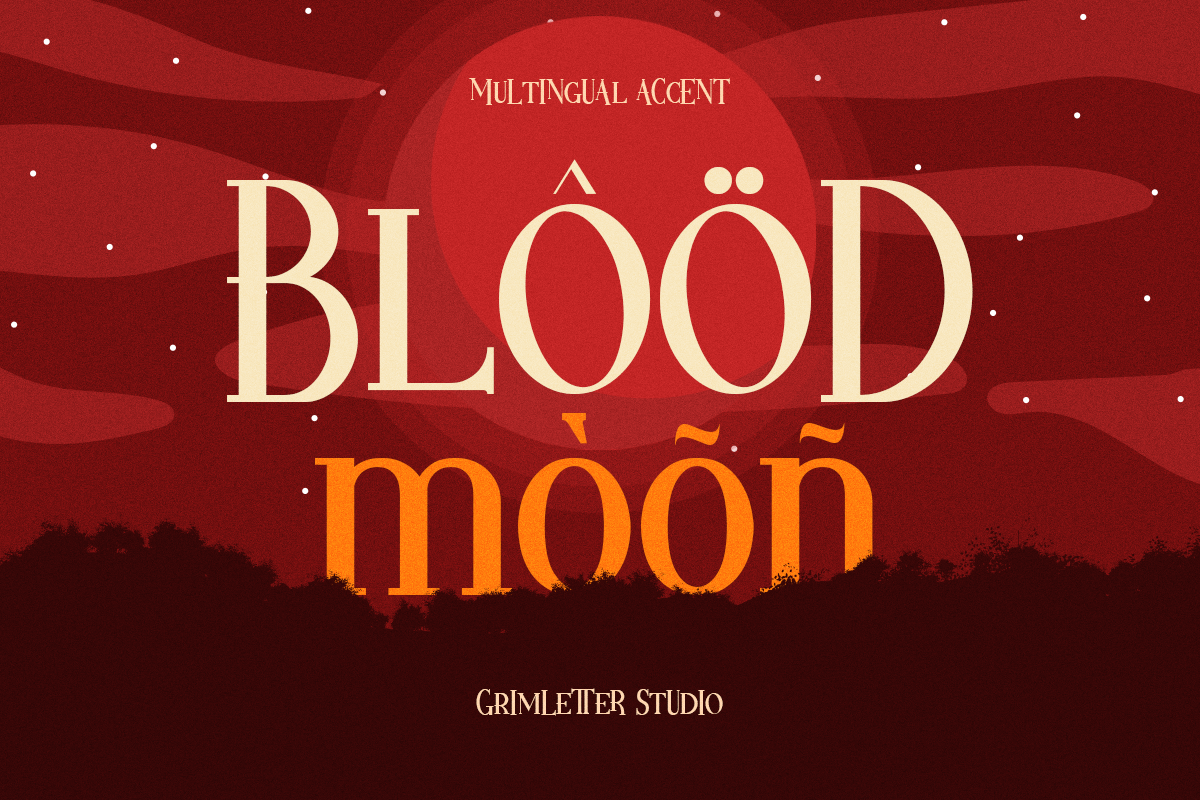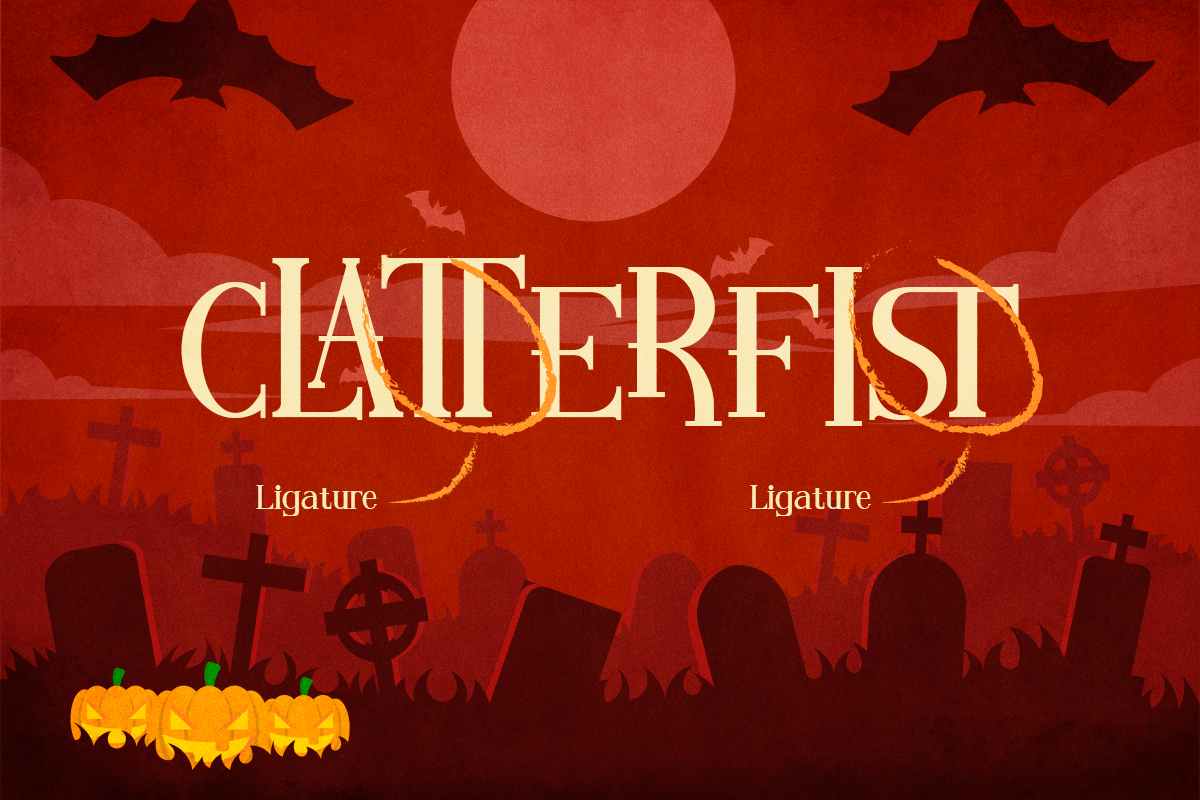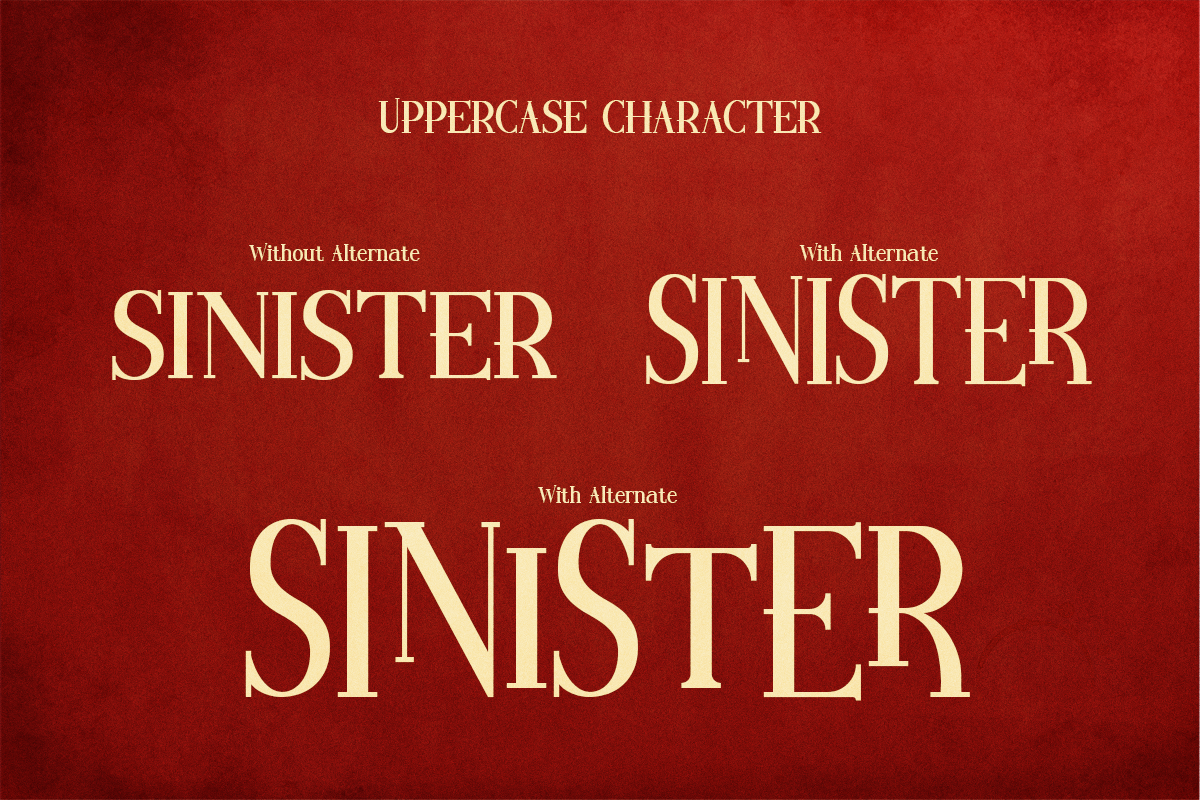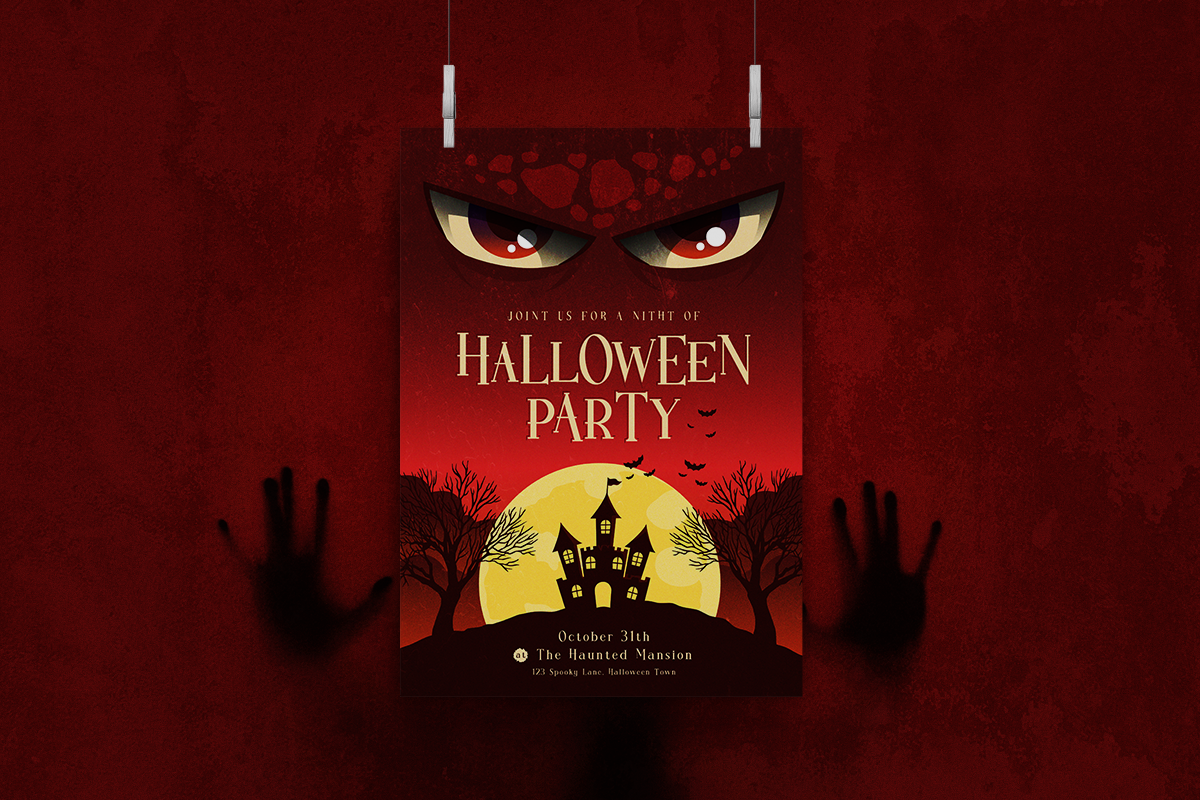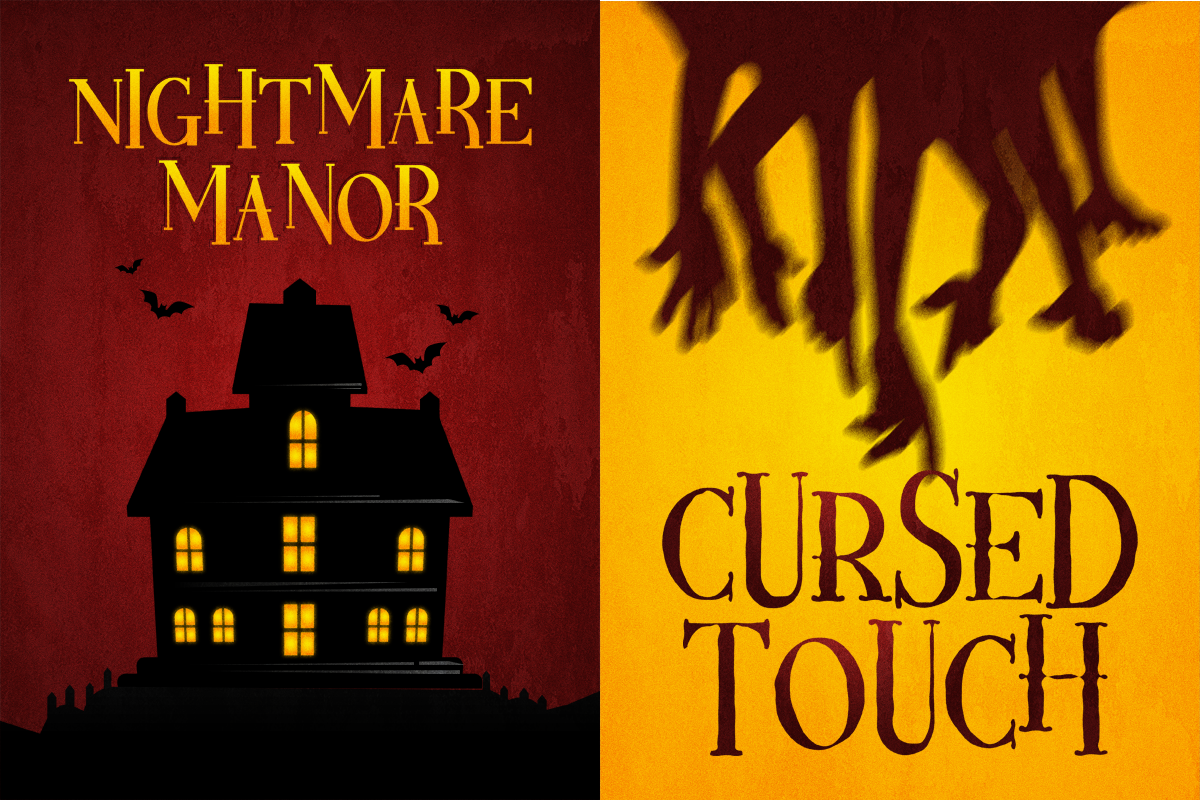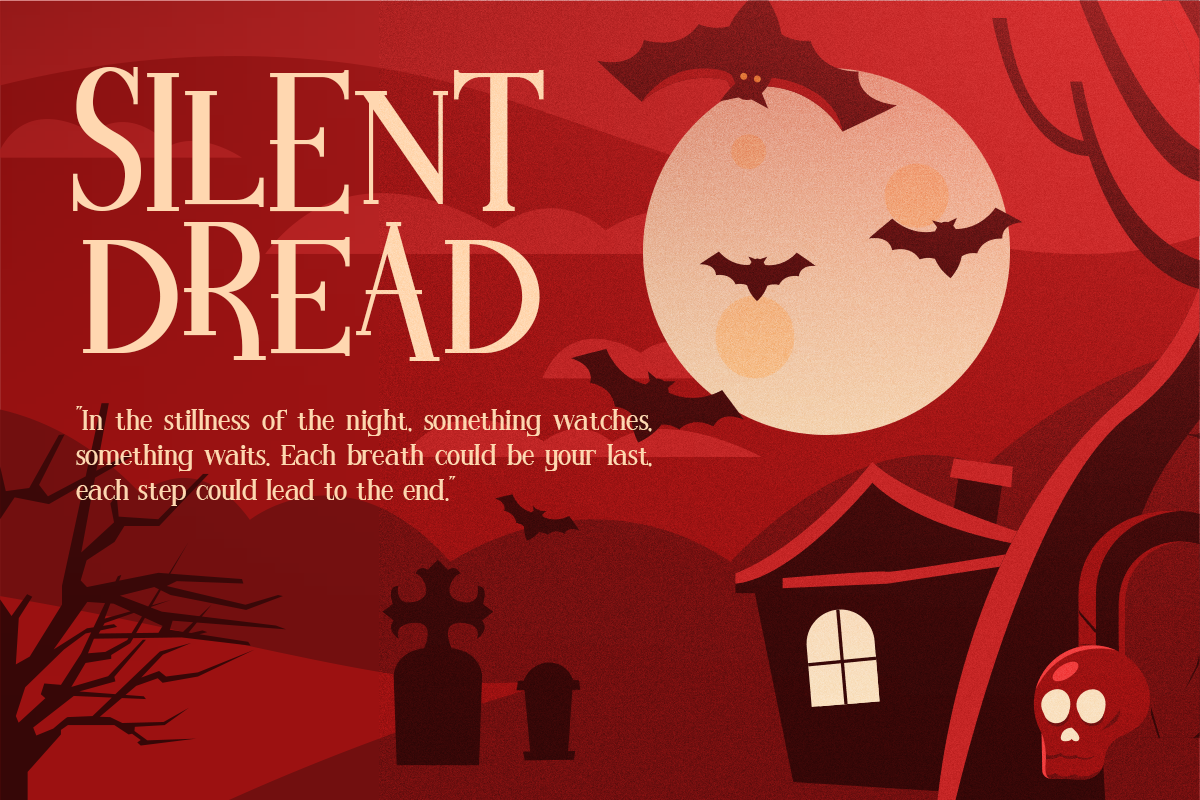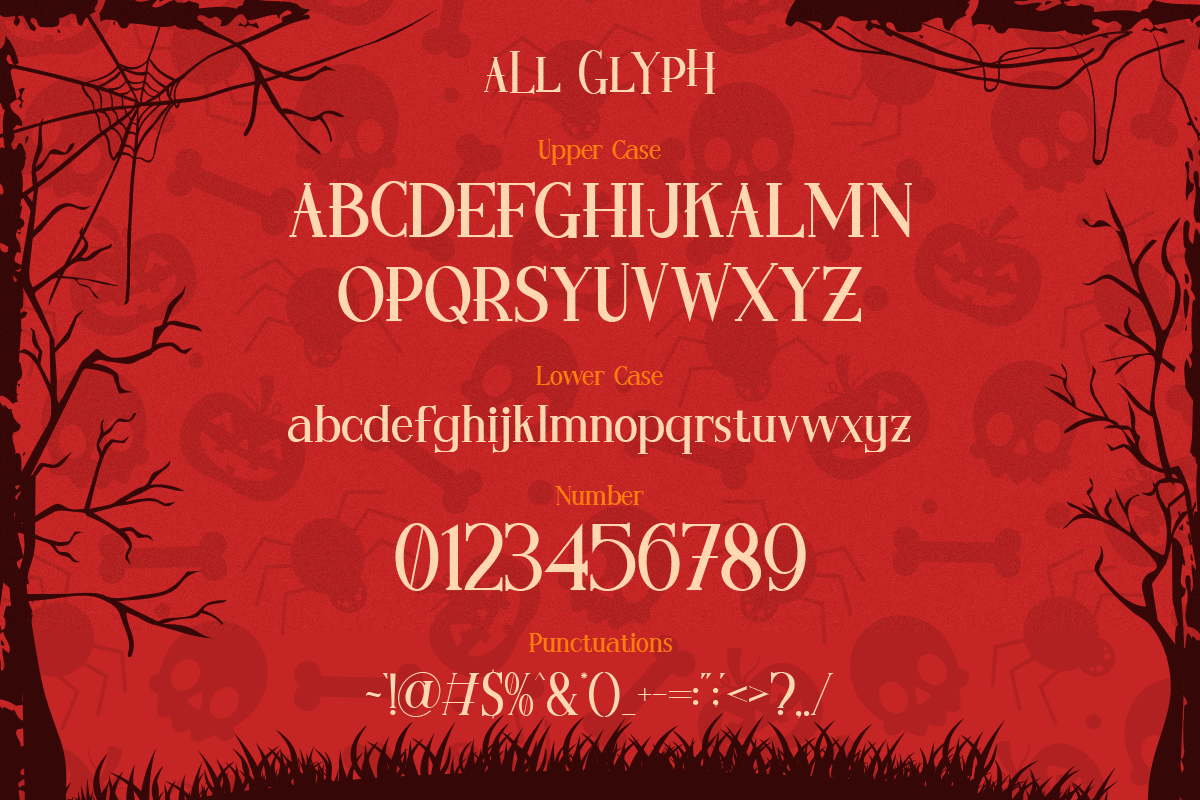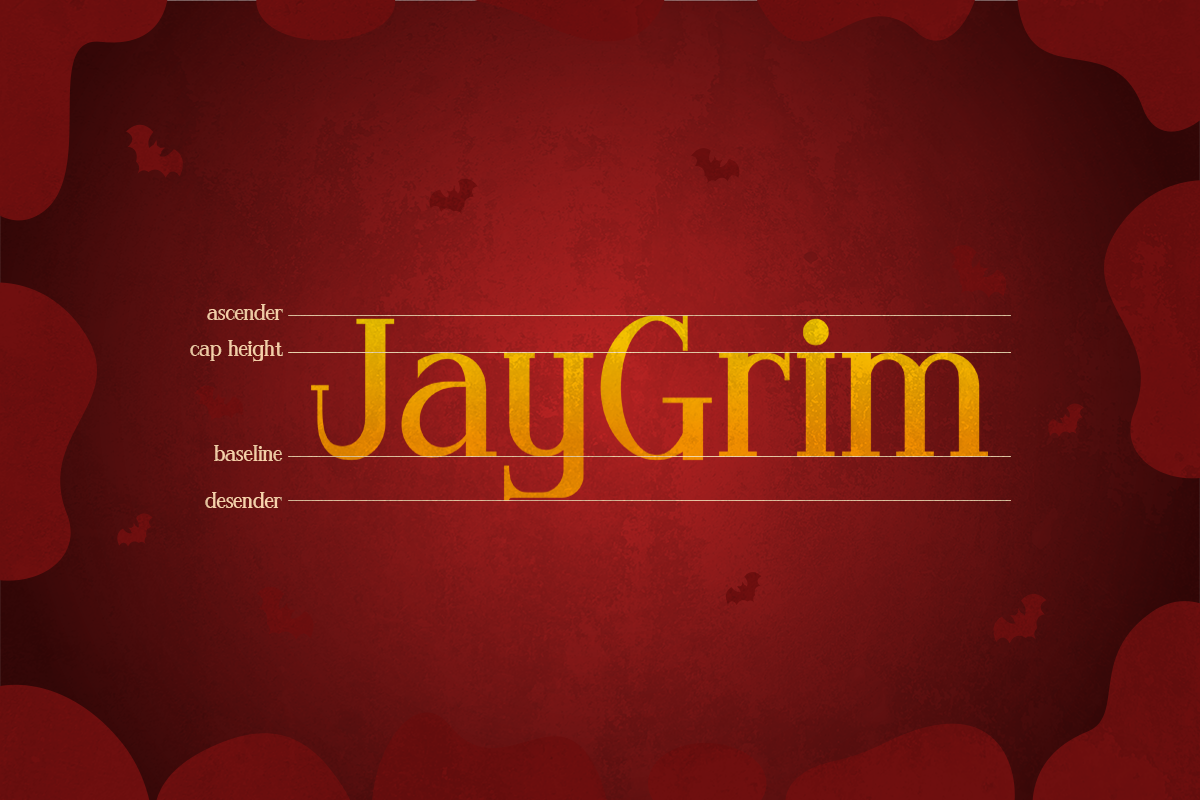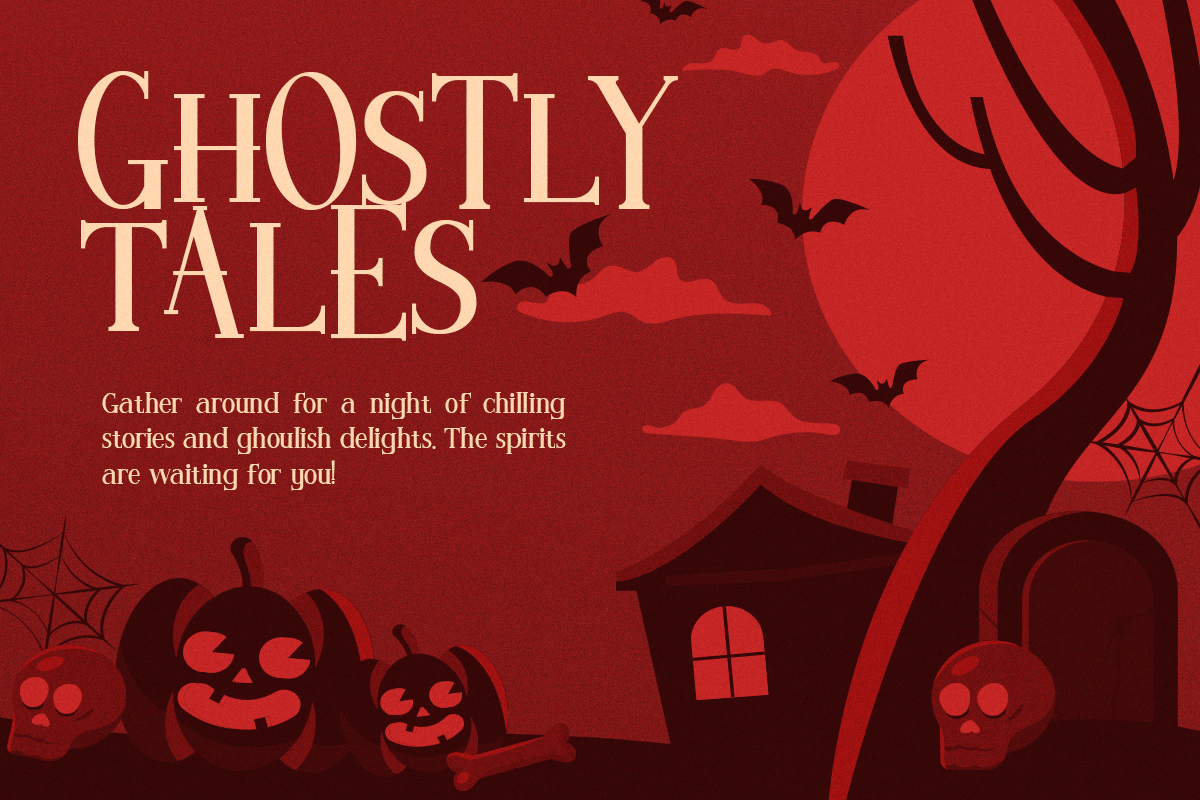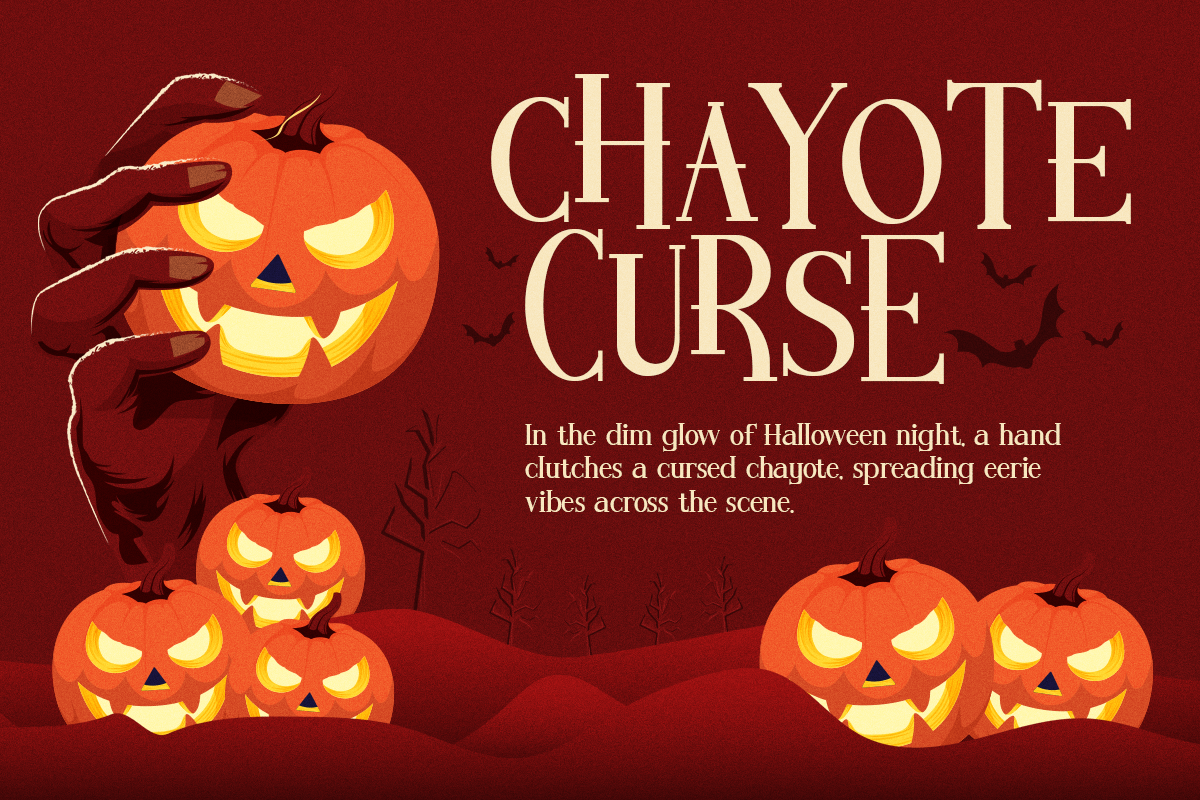
Sacred Terror – Horror Serif Display
Step into the shadows with Sacred Terror, a chilling serif display typeface forged for designers who dare to evoke fear, mystery, and suspense. With its sharp edges and haunting presence, this font is perfect for horror posters, spine-chilling book covers, gothic branding, eerie logos, and Halloween-themed projects.
What’s Inside
- Font Styles: Regular, Outline, Shadow
- Characters: Uppercase & lowercase letters
- Extras: Alternates & ligatures
- Complete set: Numerals & punctuation
- Multilingual support: Covers major Latin-based languages
Why Choose Sacred Terror?
- Atmospheric: Designed to create instant horror vibes with a serious, dramatic serif look.
- Versatile: Works seamlessly across print & digital — from large-scale posters to subtle branding.
- Customizable: With alternates and ligatures, you can craft unique, sinister-looking headlines.
- Adaptable: Use the outline or shadow styles to add depth and cinematic flair to your design.
Bring your nightmares to life with Sacred Terror — the font that turns ordinary text into a terrifying visual experience.
👉 Perfect for: horror movies, Halloween events, spooky branding, book covers, game titles, posters, and more.